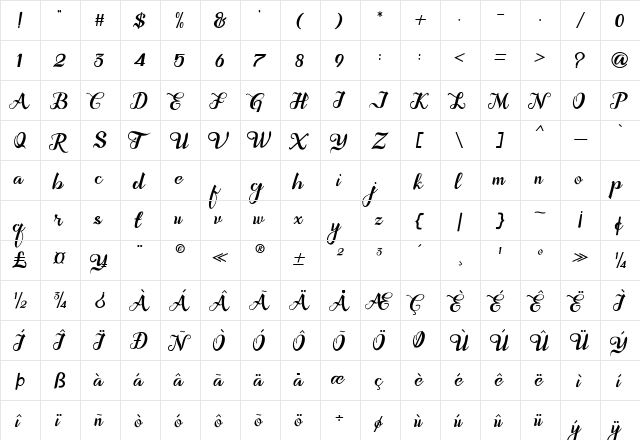
Syakia Regular
| Foundry | Lhotive Studio |
| Designer | Fuadi & Aldy |
Design Context for Syakia Typeface
Syakia takes a measured approach to typography — its balanced proportions and neutral character make it a reliable workhorse for both digital and print work.